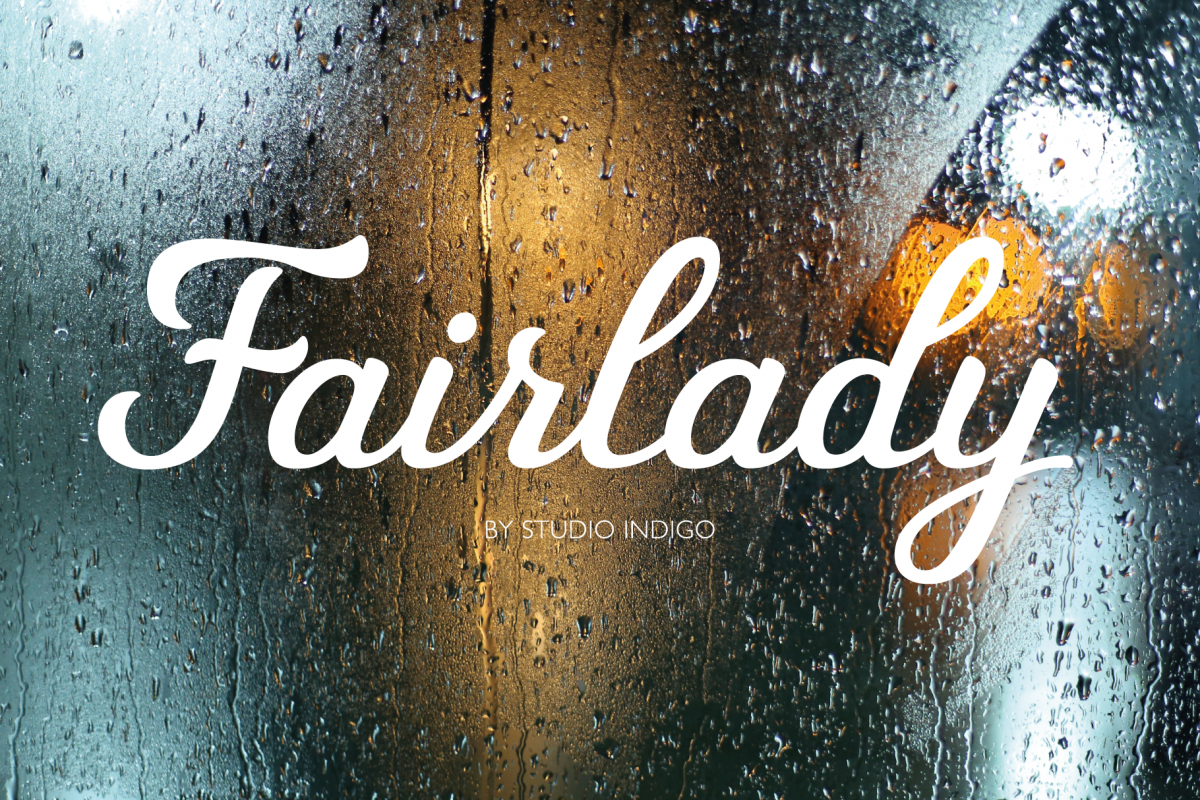
Created By Studio Indigo
Fairlady a Chunky Script Font
Fairlady-Regular
Fairlady is a chunky vintage script font based on handwritten brush letters. My idea was to design a bold cursive script font with a strong 1950's retro feel to it. Fairlady is a decorative and quite tightly spaced font with preserved legibility which makes it perfect for packaging and branding. Use it for vintage cards, labels, posters, logos, headings and much more.